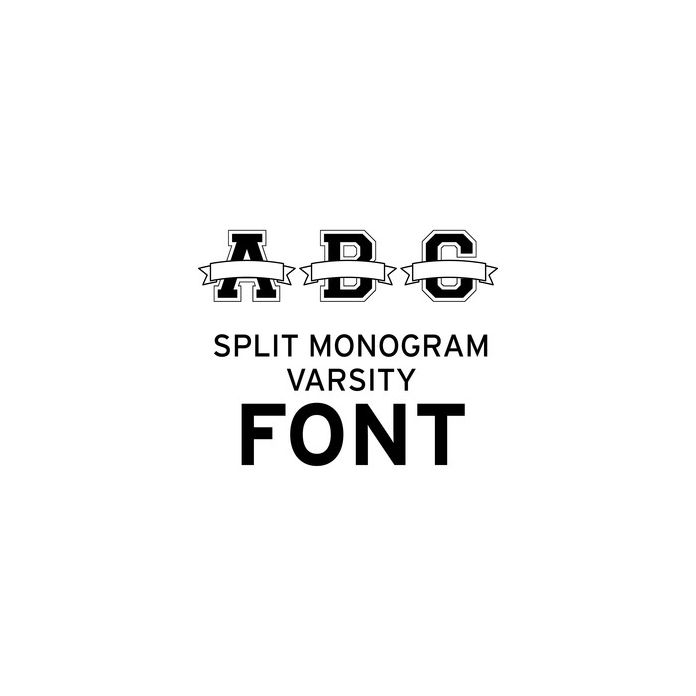
split monogram varsity font
With this font you can simply type the split monogram letters that you need. Make a quick and easy vinyl or heat transfer project with this gorgeous font.